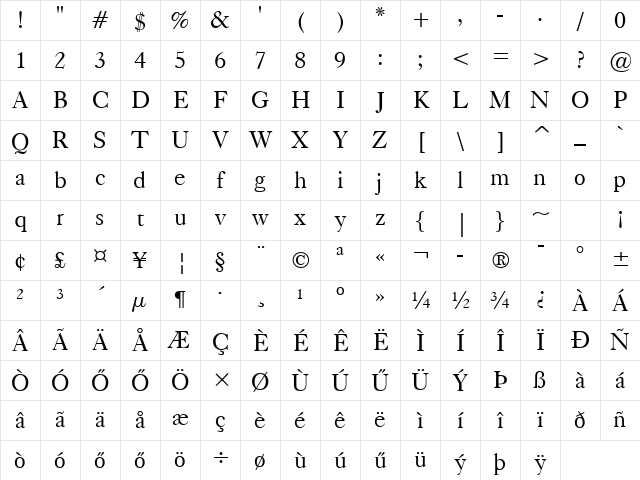
Hu_Caslb Regular
Design Context for Hu_Caslb
Hu_Caslb is a composed and adaptable typeface that performs quietly and consistently across a wide range of design contexts.